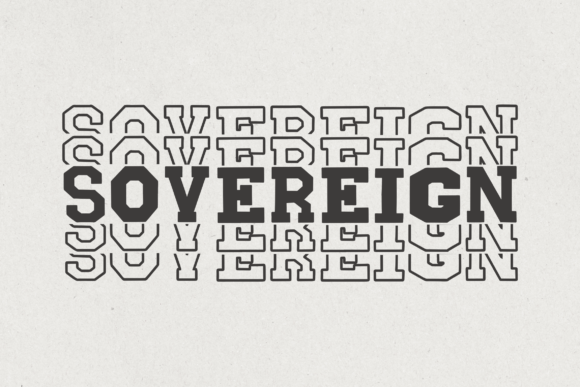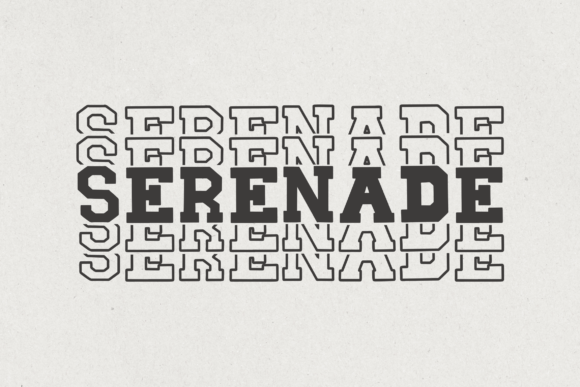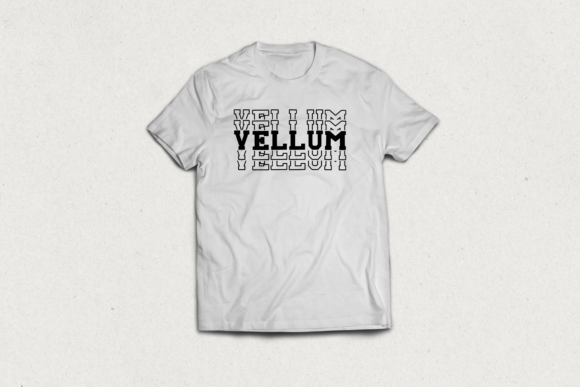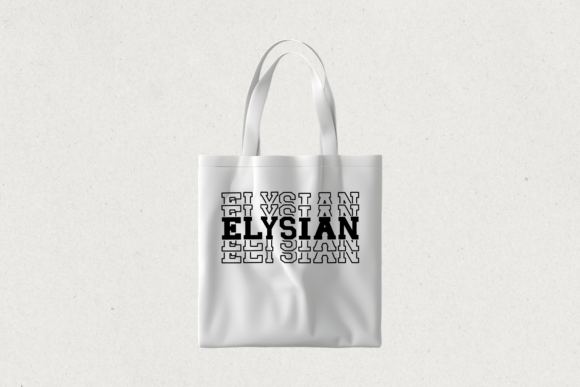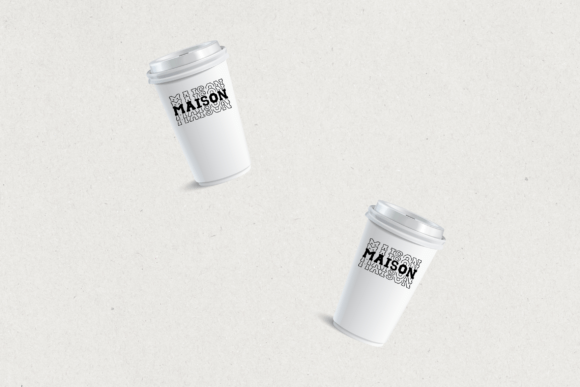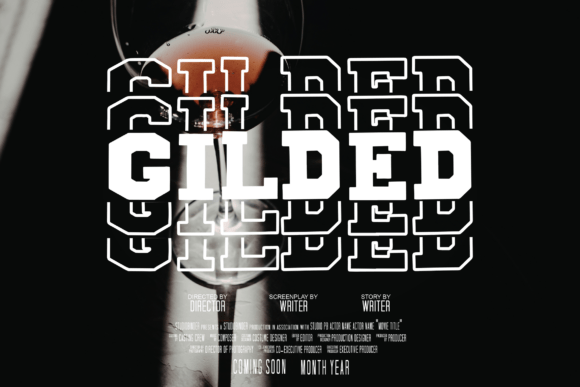
Introducing Blockton Stacked Font: Elevate Your Designs with Bold, Layered Typography
Are you tired of using the same old fonts that fail to make an impact? Look no further than Blockton Stacked, a revolutionary bold block display font that adds instant depth and dimension to your designs. With its unique stacked, layered construction, Blockton Stacked is perfect for designers and crafters who want to create bold, eye-catching visuals with minimal effort.
What is Blockton Stacked Font?
Blockton Stacked is a bold block display font that builds upon the strong geometry of its predecessor, Blockton. However, with its stacked, layered design, Blockton Stacked delivers a dimensional look that feels modern, playful, and attention-grabbing. The clean and well-aligned stacked shapes ensure that the font remains readable at any size, making it perfect for a wide range of design applications.
Key Features of Blockton Stacked Font
- Clean Printing and Cutting: The stacked letterforms print and cut cleanly for vinyl, laser, stickers, and screen printing, making it perfect for crafters and designers.
- Fast Layout Creation: The consistent structure of Blockton Stacked makes it easy to align and create layouts quickly, saving you time and effort.
- Effortless Depth: The stacked effect gives your designs depth without needing extra effects or layers, making it perfect for creators who want bold visual impact with minimal effort.
Use Cases for Blockton Stacked Font
Blockton Stacked is a versatile font that can be used for a wide range of design applications, including:
- Logos: Create bold, eye-catching logos that make a lasting impression.
- Posters: Design striking posters that grab attention and convey your message.
- Packaging: Add a touch of modernity and sophistication to your product packaging.
- Apparel: Create bold, statement-making apparel that stands out.
- Signage: Design eye-catching signage that grabs attention and communicates your message.
- Stickers: Create fun, bold stickers that make a lasting impression.
- Statement Branding: Use Blockton Stacked to create bold, cohesive branding that makes a statement.
Tips for Using Blockton Stacked Font
To get the most out of Blockton Stacked, start with short, punchy words that make a bold statement. The font’s stacked design makes it perfect for short phrases or single words that need to pack a punch. Experiment with different colors, textures, and backgrounds to add depth and interest to your designs.
Blockton Stacked Font is a game-changer for designers and crafters who want to create bold, eye-catching visuals with minimal effort. With its unique stacked design, ease of use, and versatility, Blockton Stacked is perfect for a wide range of design applications. Try Blockton Stacked today and take your designs to the next level!